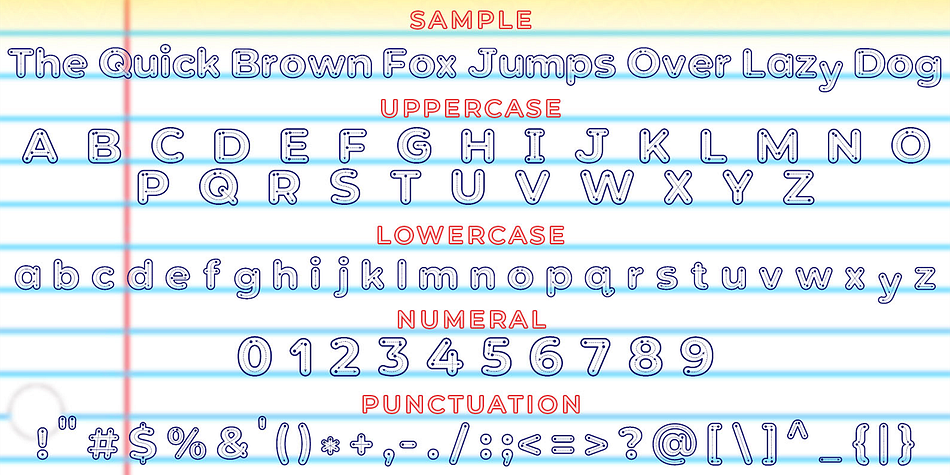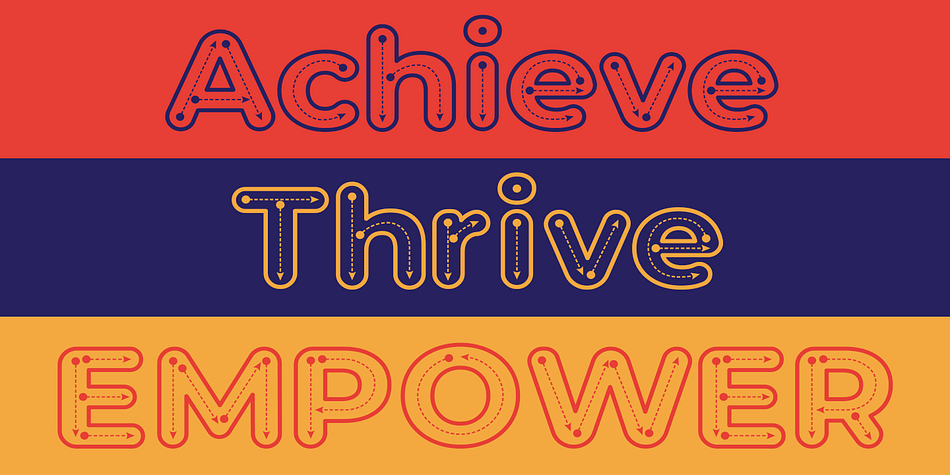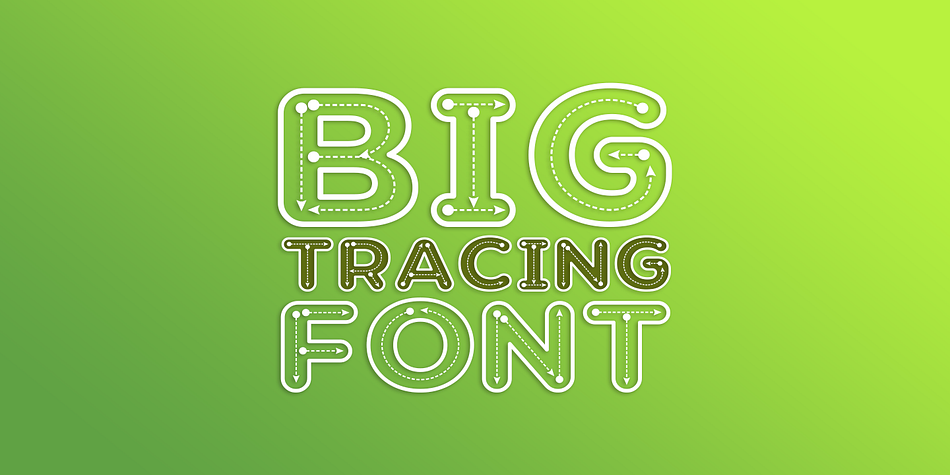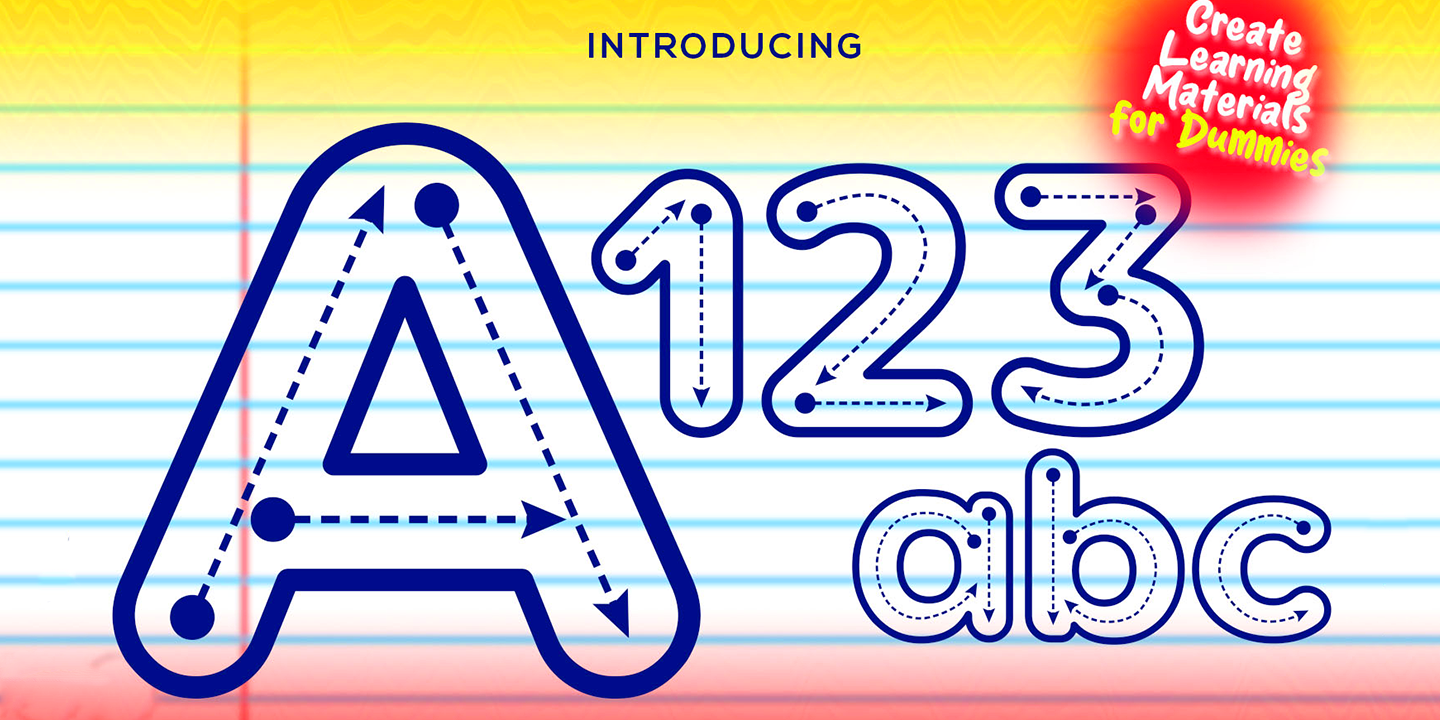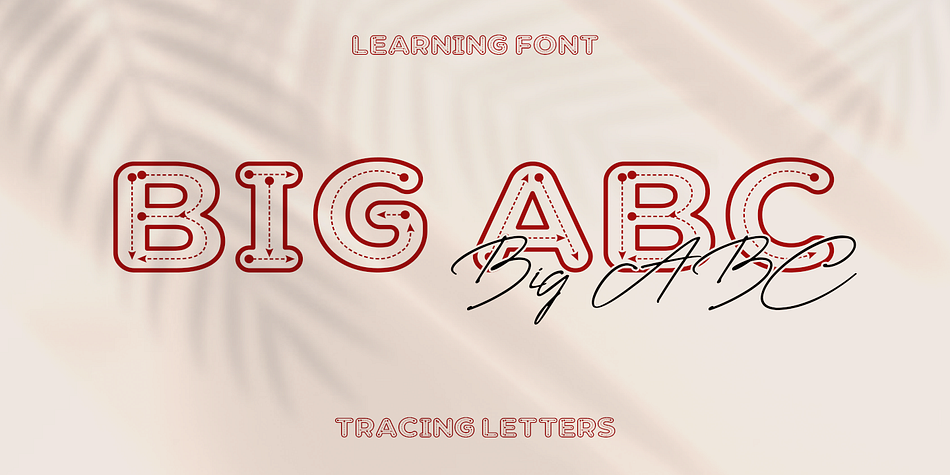
Big Alphabet Tracing
Designed by Mohammed Lamjidi, Big Alphabet Tracing is a display font family published by Beast Designer.
Introducing the Big Alphabet Tracing Font – a font designed to help kids learn the alphabet in a fun way. The font looks friendly and playful, making learning feel like a game. It is perfect for teachers, parents, and anyone who wants to make learning the alphabet exciting and interactive.